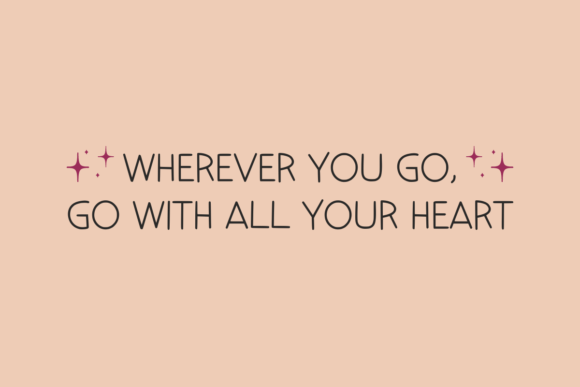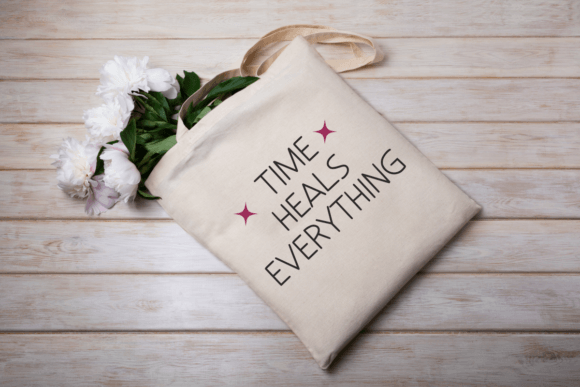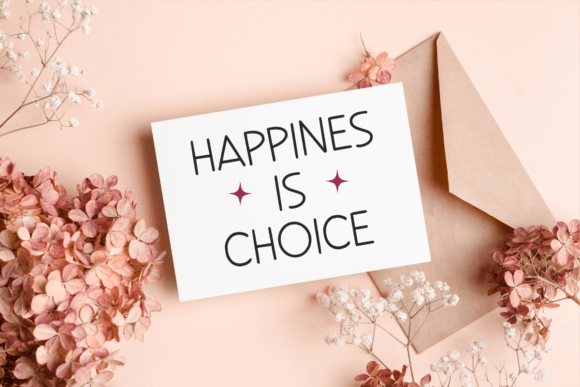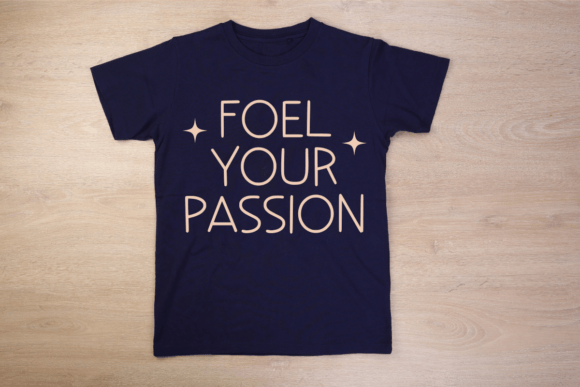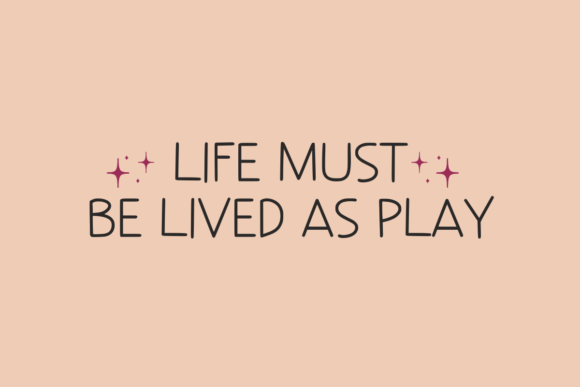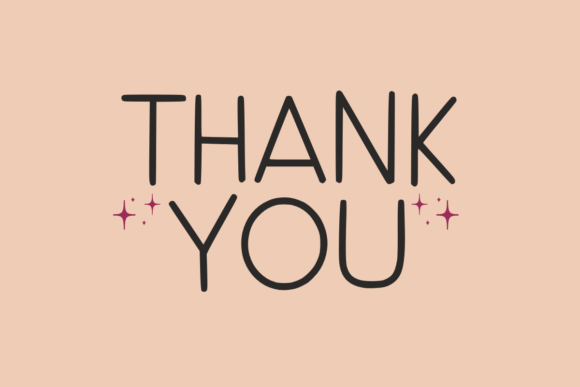
Introduction to Quick Simple Font
Quick Simple is a cute and playful sans-serif font.
Whatever the topic, this font is perfect for your creative craft needs .
Key Features of Quick Simple Font